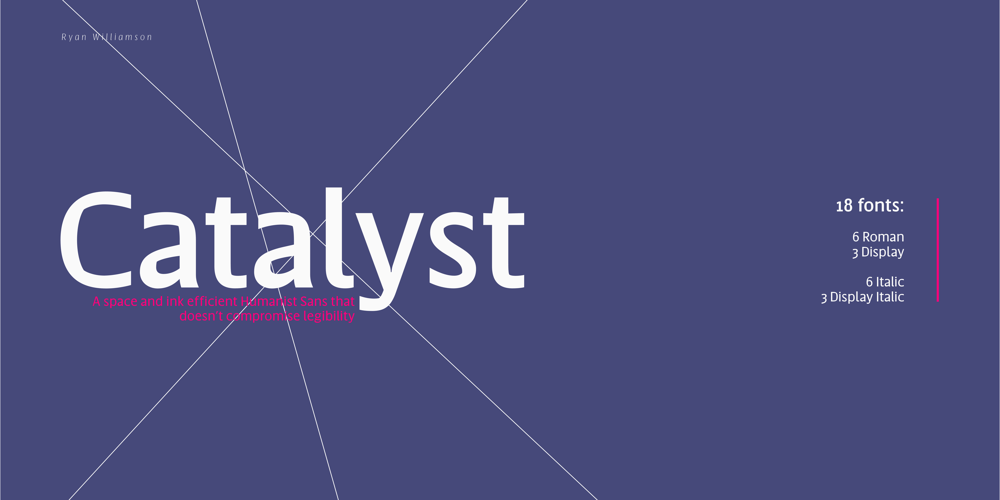
Catalyst Font Family was designed by Ryan Williamson and published by Ryan Williamson. Catalyst contains 18 styles and family package options. Catalyst is an attempt at increasing the economy of print while retaining optimal legibility through type design. This type family does so through subtle and intentional OpenType features, as well as referencing successful past attempts throughout history.